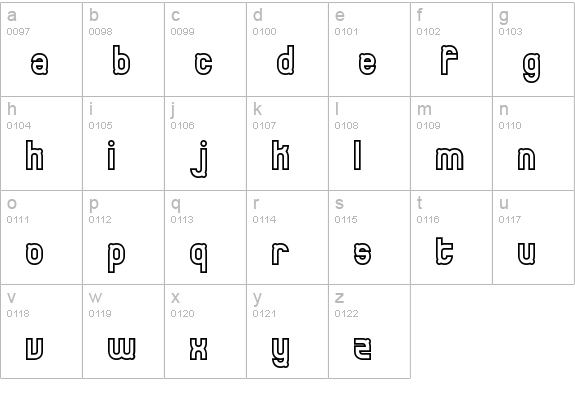
Bumped BRK Font Details
Bumped BRK font is a unique and eye-catching typeface that is sure to make a statement in any design project. With its bold, bumpy letters, this font exudes a sense of fun and playfulness. Whether you're looking to add a touch of whimsy to a poster, flyer, or logo, Bumped BRK is the perfect choice. And the best part? Bumped BRK font is completely free to download at FontsMarket.com! That's right, you can add this stylish font to your collection at no cost. So why wait? Give your designs a boost with Bumped BRK today!